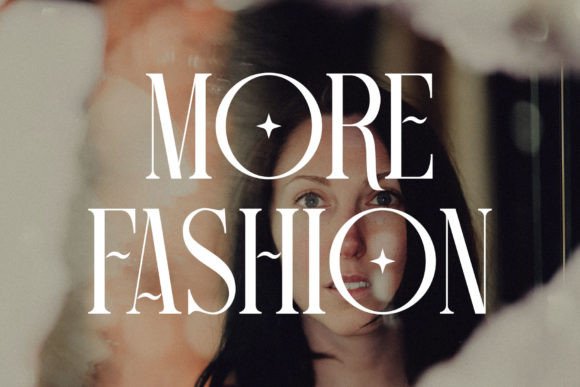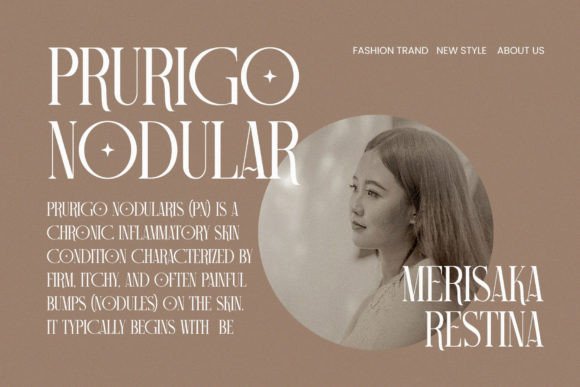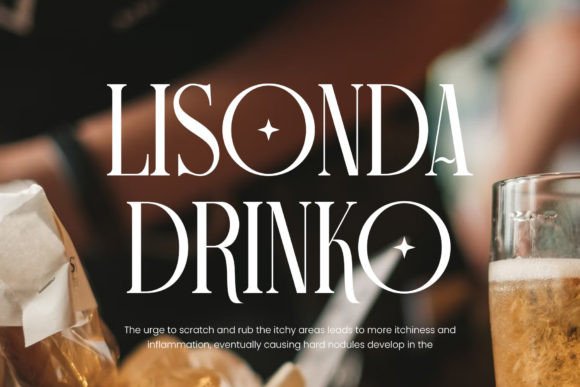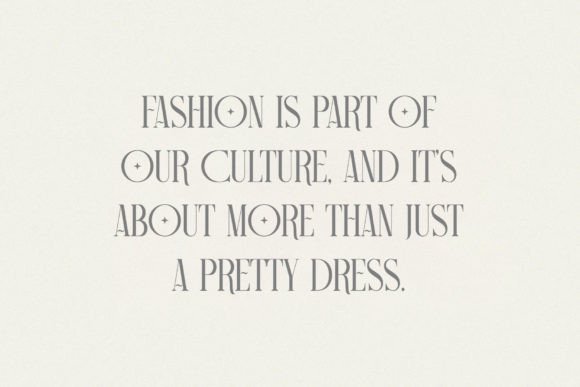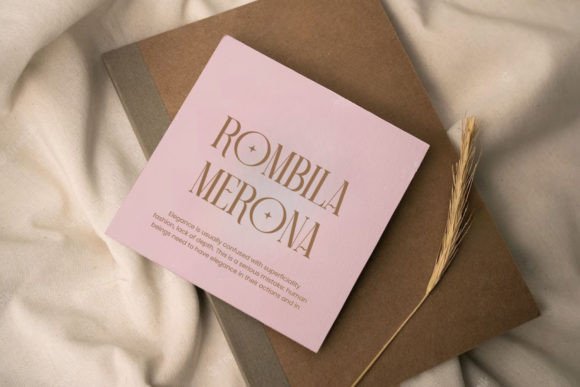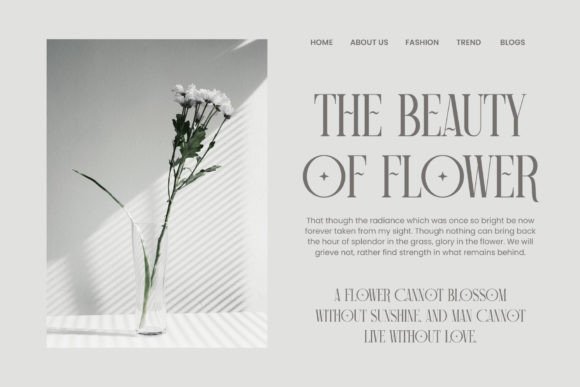
Introduction to Castro Font
Castro is a modern elegant serif font that exudes sophistication and style.
Its graceful letterforms blend classic charm with a contemporary twist, making it perfect for projects that demand a touch of refinement With its balanced proportions and fine detailing, Castro adds a timeless touch to any design, whether itโs for branding, editorial layouts, or elegant invitations.